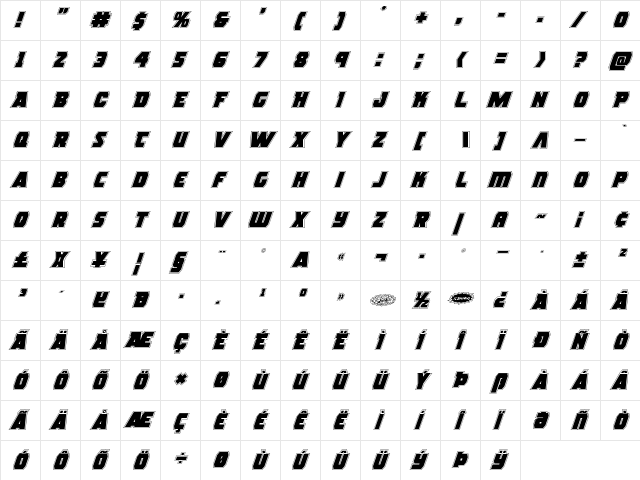
Rogue Hero Academy Italic Italic
Design Context for Rogue Hero Academy Italic Typeface
Rogue Hero Academy Italic is a composed and adaptable typeface that performs quietly and consistently across a wide range of design contexts. The dynamic lean of this cut emphasises speed and emphasis in any layout.
Pro Tip: Try Rogue Hero Academy Italic for annotation and caption copy alongside an upright companion — the contrast in angle creates a dynamic but ordered typographic system.